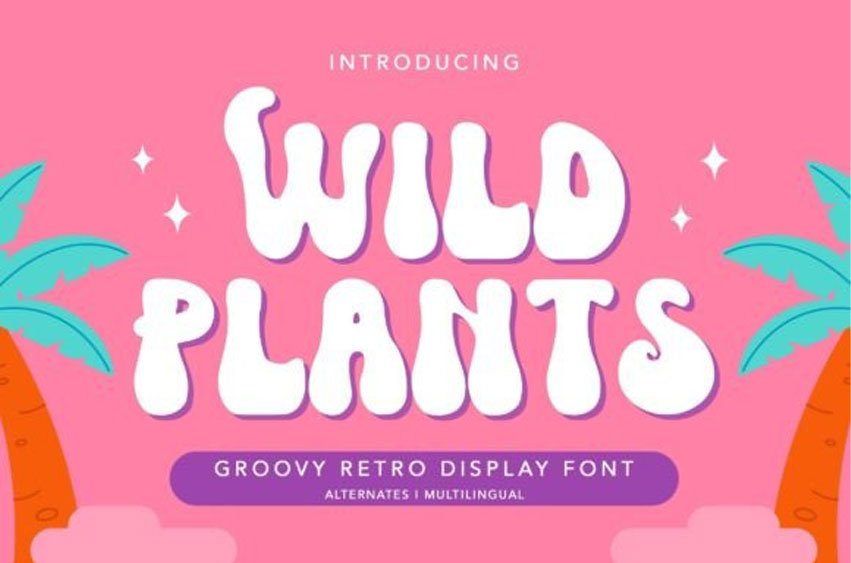
Wild Plants Font is a groovy retro display font perfect for branding projects, logos, wedding designs, social media posts, advertisements, product packaging, product designs, labels, photography, watermarks, invitations, stationery, and any project which needs a distinctive touch.